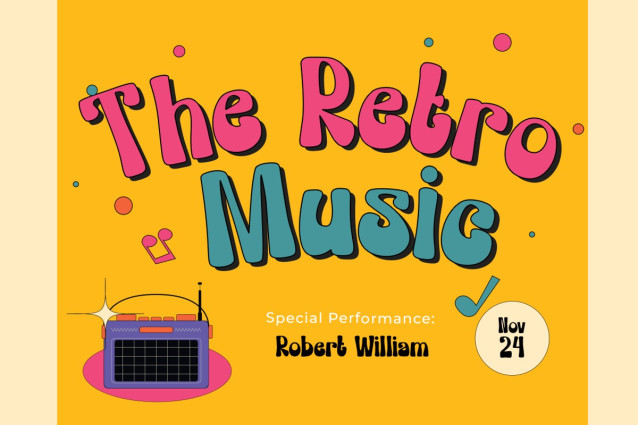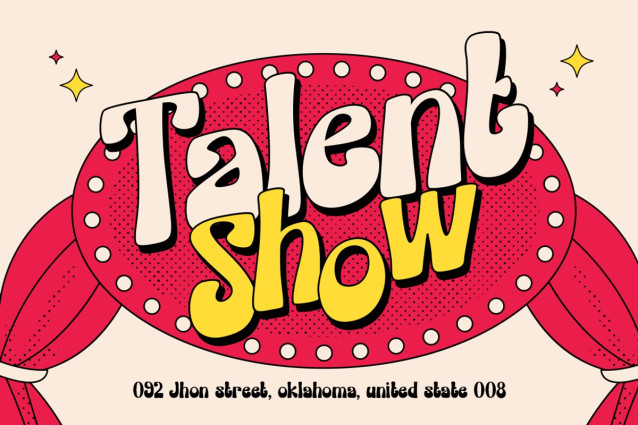
Daisy Display Typeface
Daisy Display Typeface delivers charm and vibrancy by drawing inspiration from vintage design trends. Its bold, playful curves and exaggerated proportions create a cheerful, mid-20th-century aesthetic. Moreover, DAISY’s bright and quirky personality ensures it stands out in any project. It blends retro vibes with a modern twist, making it versatile for various creative needs. Each letterform radiates energy and friendliness, which is perfect for grabbing attention and evoking nostalgia.
This versatile typeface works well for bold headlines, product packaging, and branding. Additionally, it’s an ideal choice for projects that need a fun and approachable feel. DAISY’s design merges retro aesthetics with contemporary usability, ensuring excellent legibility even at larger sizes. Furthermore, the chunky, rounded strokes give it a soft and inviting look. As a result, it works great for posters, flyers, children’s books, and logos. The font’s balance of personality and practicality makes it a go-to choice for many design applications.
Moreover, DAISY performs exceptionally well in projects where a playful yet professional tone is required. For instance, it pairs beautifully with bright color palettes and bold design elements. Its nostalgic charm connects with audiences emotionally, while its clean execution ensures readability and impact. Designers can experiment with DAISY in combination with other typefaces to create unique visual contrasts.